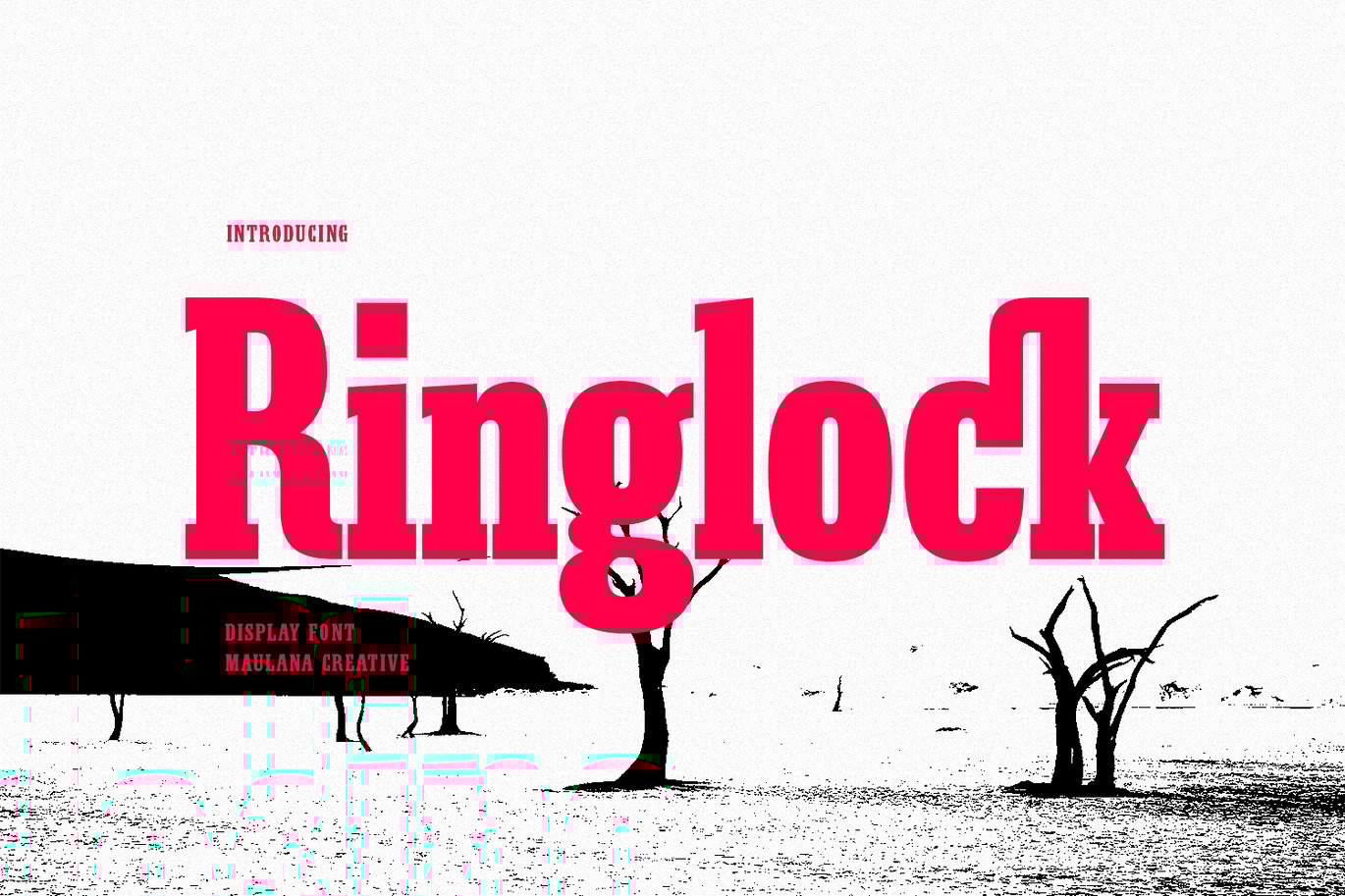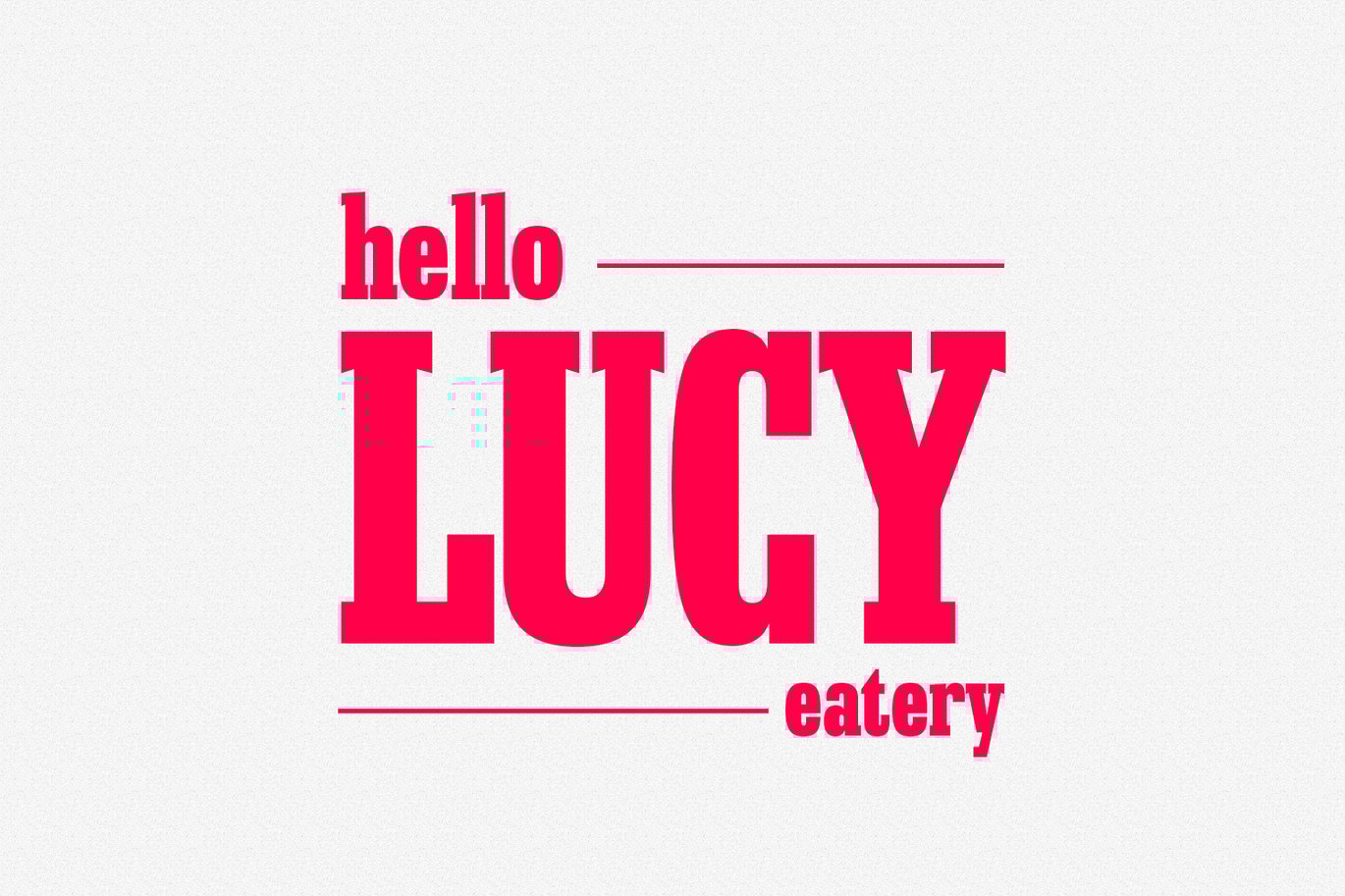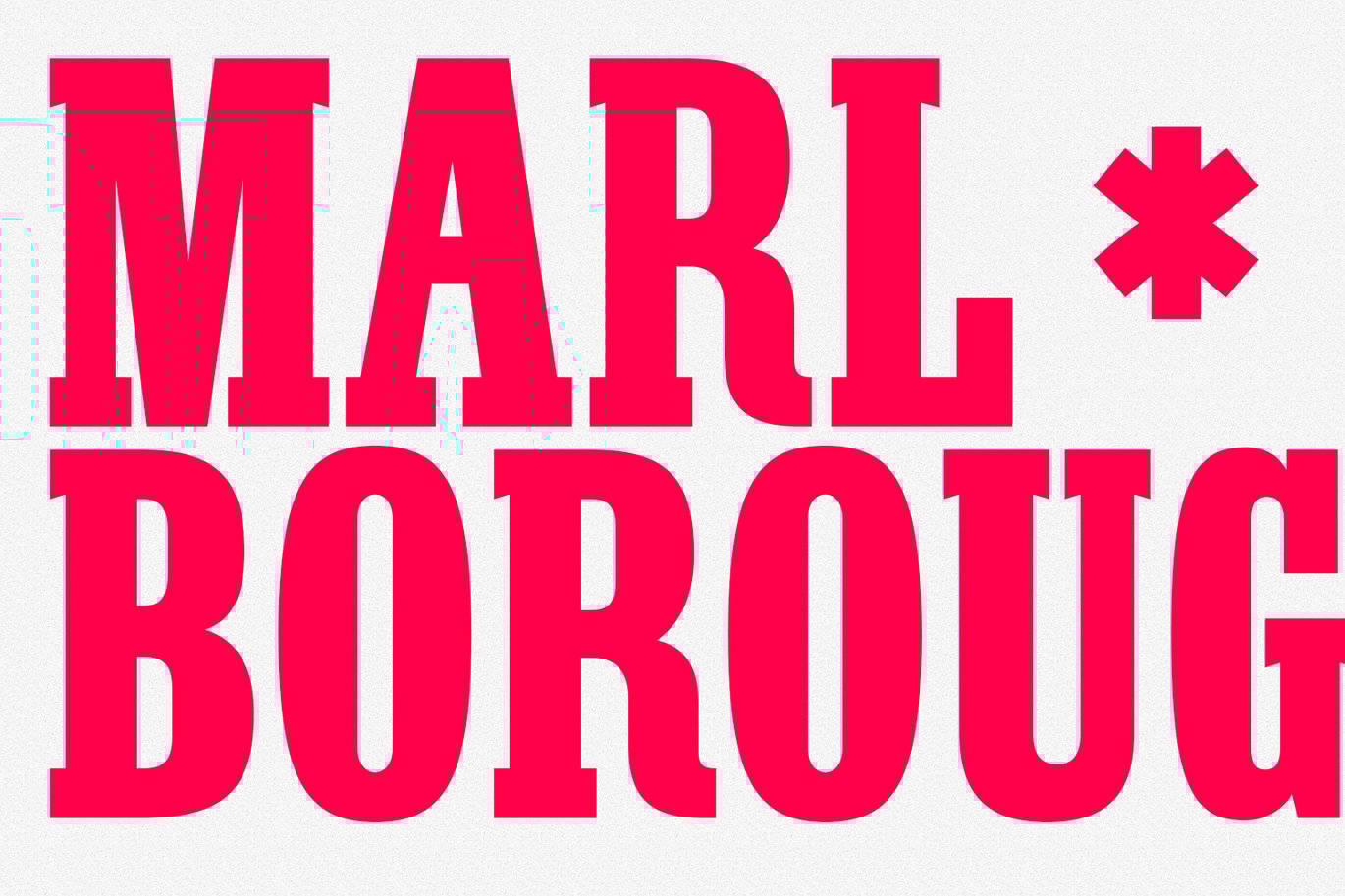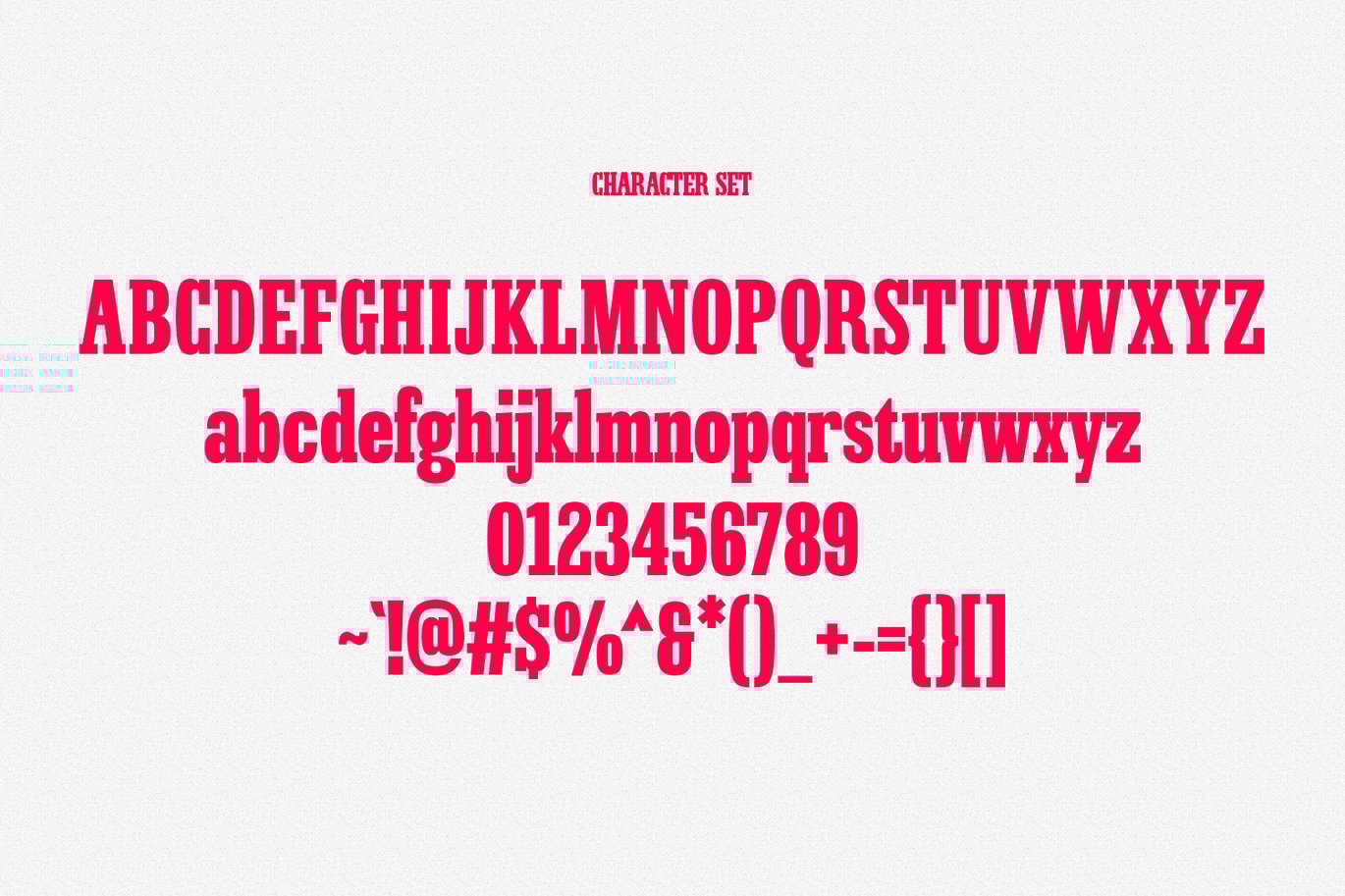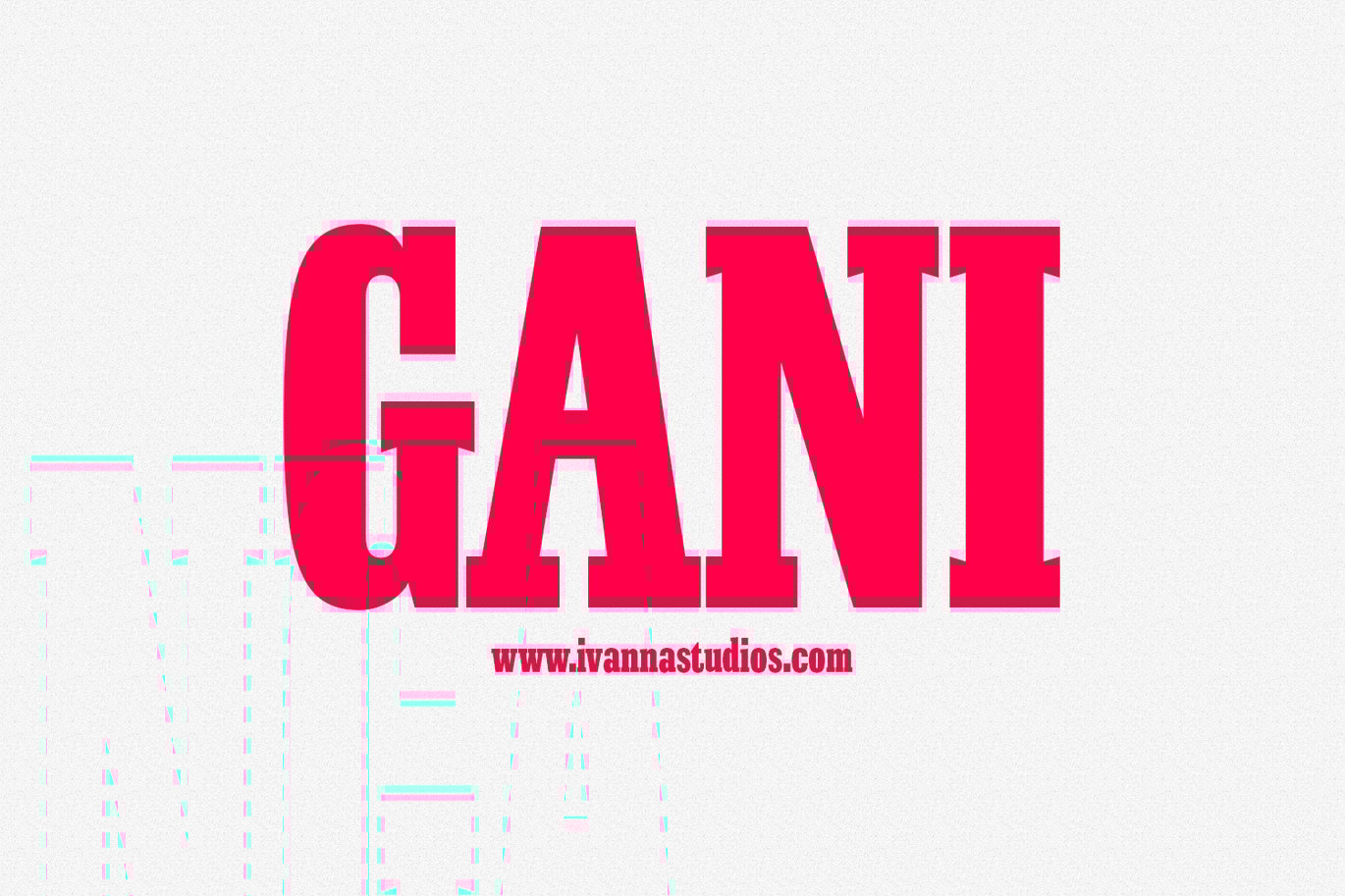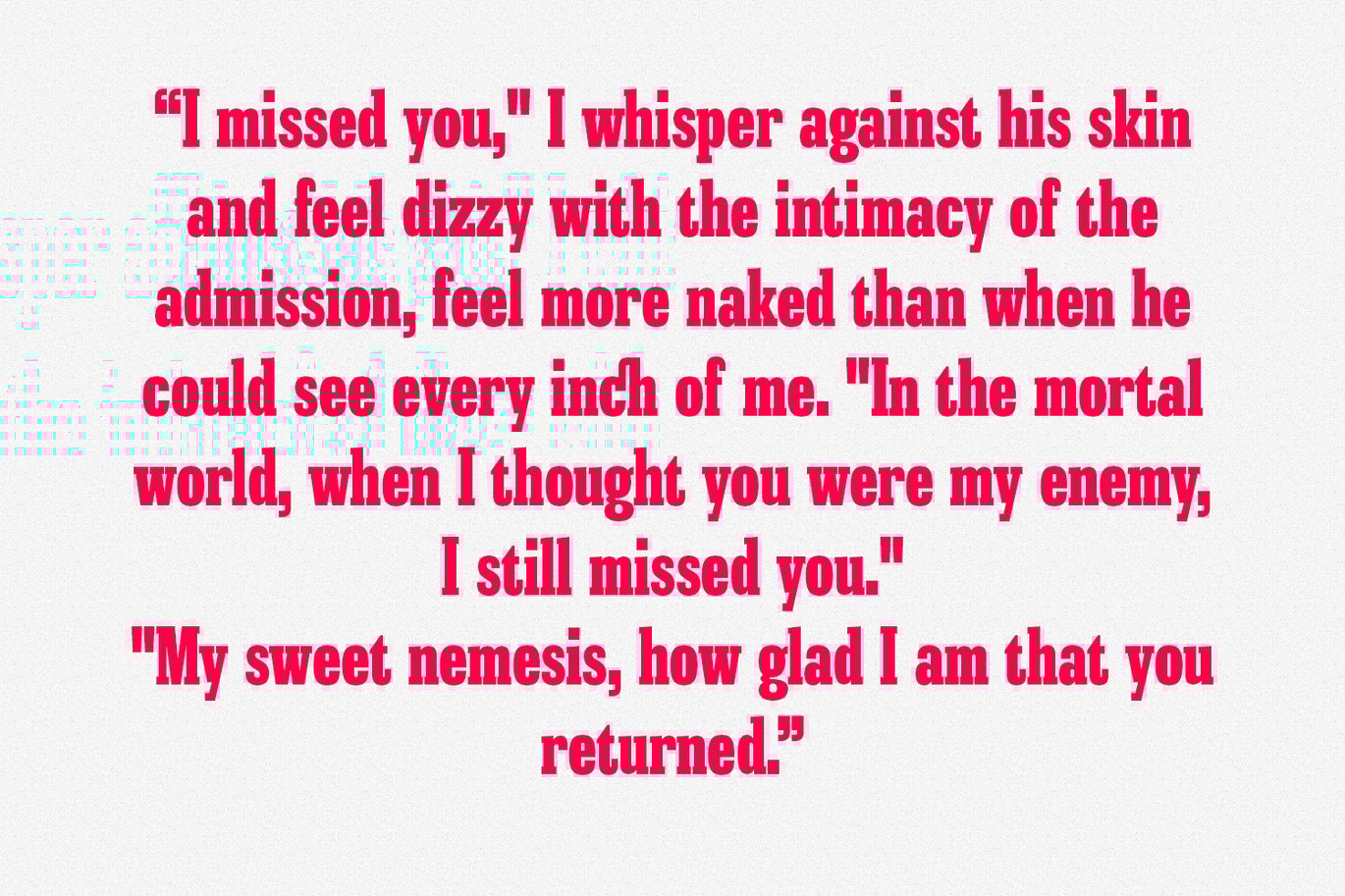
Ringlock Slab Serif Font
Ringlock is a Slab serif Display font. Bold stroke, fun character with a bit of ligatures and alternates. To give you an extra creative work. Ringlock font support multilingual more than 100+ language. This font is good for logo design, Social media, Movie Titles, Books Titles, a short text even a long text letter and good for your secondary text font with script or serif. Make a stunning work with Ringlock font.